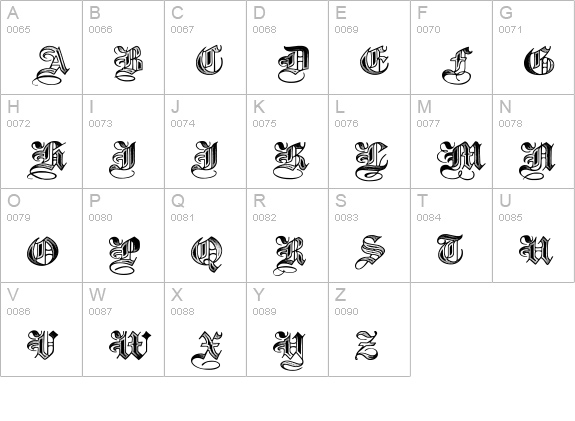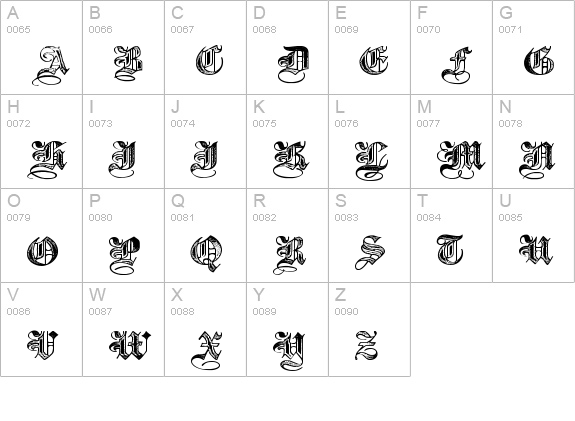
Halftone Black DemiBold Font Details
Halftone Black DemiBold is a maximum-weight, dramatic variant in the Halftone typeface family \xE2\x80\x94 well suited to maximum-impact headlines, posters, and packaging.
Introducing Halftone Black DemiBold, a captivating typeface that effortlessly combines timeless elegance with contemporary style. This font exudes confidence and sophistication, making it the perfect choice for designers and creatives seeking to make a bold statement. With its refined curves and impeccable letterforms, Halftone Black DemiBold captures attention and commands a presence on any project. Whether used in headlines, logos, or editorial designs, this font adds a touch of distinction that sets it apart from the rest. What makes Halftone Black DemiBold even more remarkable is that it is available for free. Yes, you read that right! This exceptional font can be freely downloaded at FontsMarket.com, making it accessible to individuals and businesses alike. Now you can elevate your designs without breaking the bank. The versatility of Halftone Black DemiBold is truly unparalleled. Its clean lines and balanced proportions lend themselves to a wide range of applications, from branding and packaging to social media graphics and website design. This font adapts seamlessly to any project, ensuring a cohesive and polished aesthetic. Furthermore, Halftone Black DemiBold offers a wide array of characters and ligatures, allowing for endless creative possibilities. Whether you're aiming for a sleek and modern look or a more vintage-inspired design, this font has got you covered. So why wait? Download Halftone Black DemiBold today and unlock a world of design possibilities. With its striking presence and its ability to make a lasting impression, this font is sure to become an essential tool in your creative arsenal. Don't miss out on this opportunity to bring your vision to life with Halftone Black DemiBold. Visit FontsMarket.com now and get started on your next design adventure.